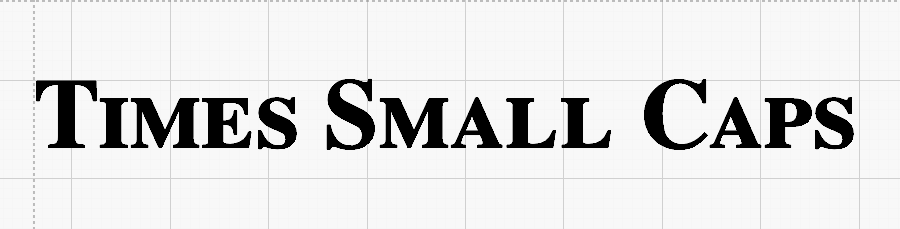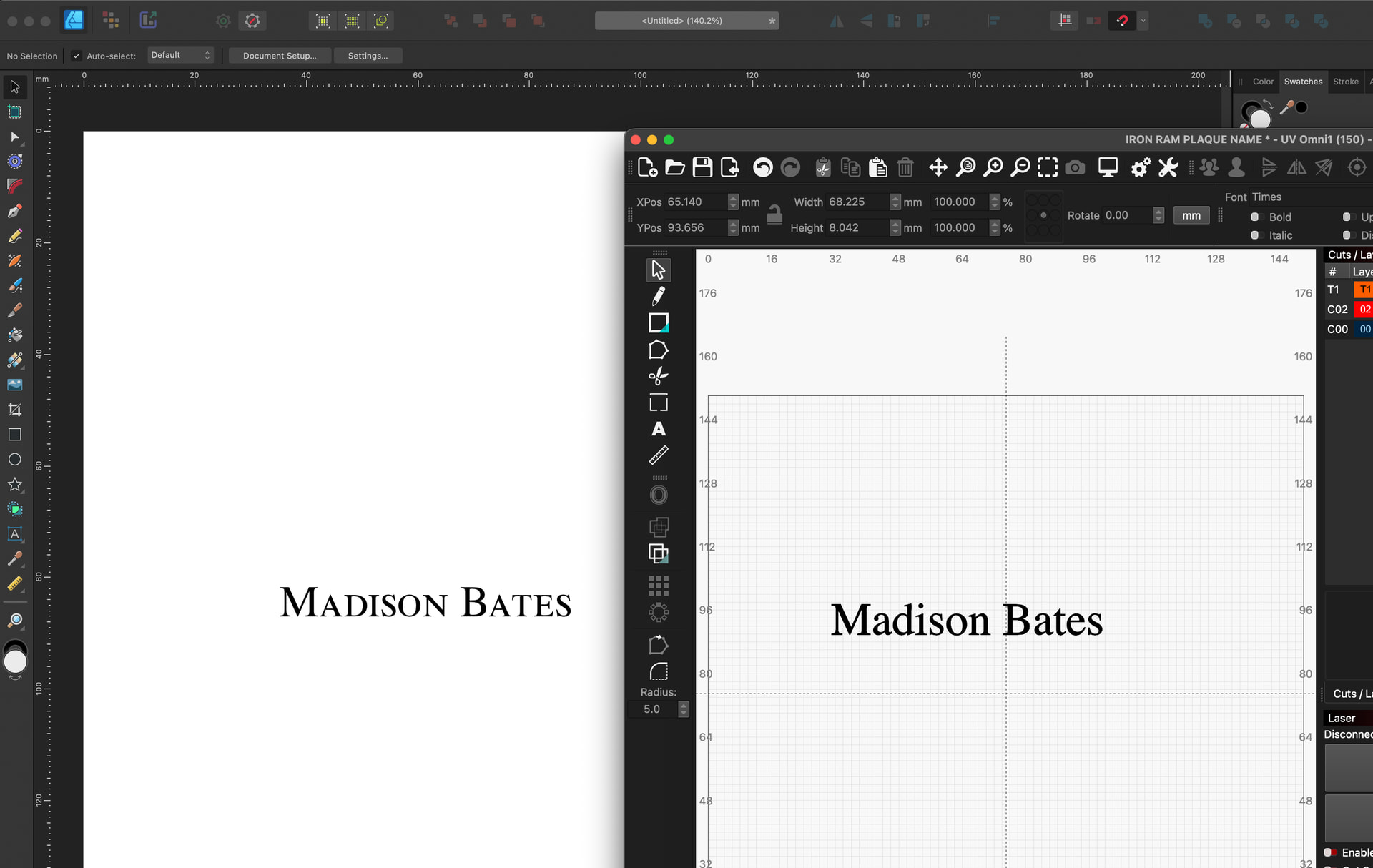
I downloaded this small cap Times Font, as it matches the Font Used on an existing perpetual plaque that needs some names added. For some reason, the font does not display correctly in Lightburn. Is there a setting or something I am missing?
Attached is an image of what it looks like in Affinity Designer (which is what I expected based on the online preview) compared to what it looks like in Lightburn. It should be all upper case, with CAPS just larger upper case.
I’m able to replicate the issue. I believe it is because of the non standard style name. Lightburn doesn’t recognize it. In Affinity the only style option is “Bold Small Caps & Old Style Figures”. I tried it in Pages and have multiple style options available, but the only one that gives the small caps effect is the Bold Small Caps… style. See screenshot below.
If you require this specific font style you should create it in Affinity and export as svg with “Export text as curves” selected, then import that into Lightburn. You can then scale as necessary, but you will not be able to change the text in Lightburn. To make any changes you will need to recreate in Affinity.